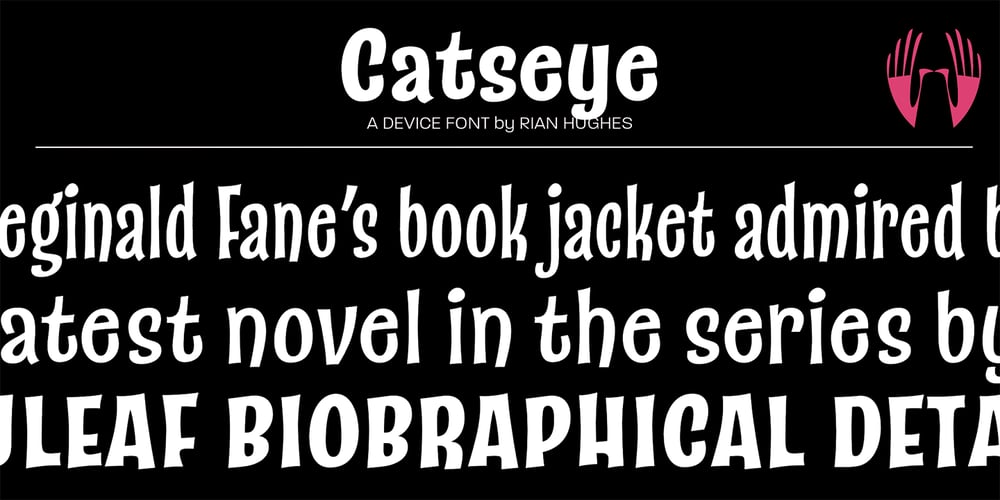
Catseye Font Family was designed by Rian Hughes and published by Device. Catseye contains 12 styles and family package options. A casual sans that harks back to the very English style of book jacket and poster art of the late 50’s and early 60’s. The turned-in terminals are reminicent of Stephenson Blake’s Grotesque 9, and the italic provides unique cursive versions of the lowercase characters. Available in a “narrow” version as well as two standard weights, this face lends itself to the wider letterspacing that evokes hot metal.